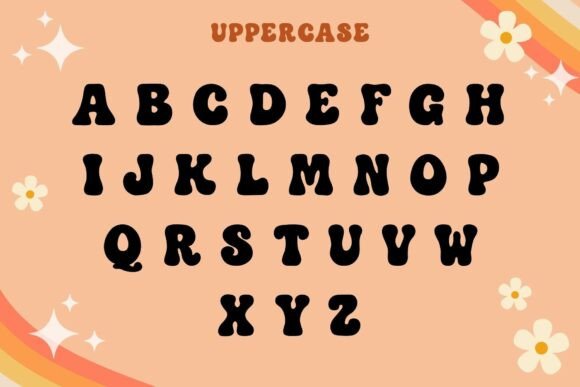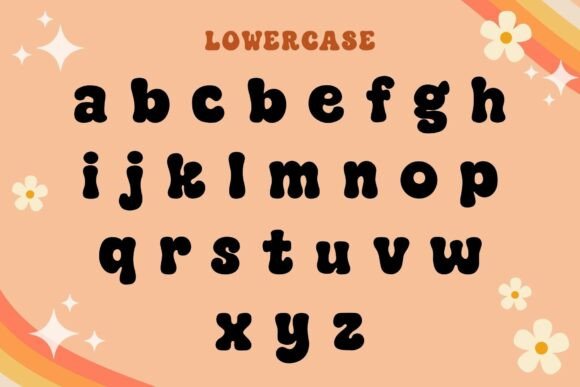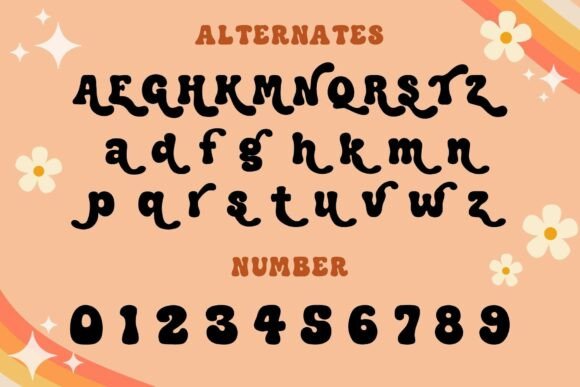
Introduction to Groovy Chunk Font
Have you ever stumbled upon a font that instantly transports you to a bygone era of funk and flair? For designers and creatives, there’s nothing quite like the thrill of discovering a new design resource that sparks inspiration and elevates their work. And that’s exactly what the Groovy Chunk Font does – it brings a playful, retro vibe to your creative project, making it perfect for standout headlines, logos, and more.
Whether you’re working on a high-quality design for a client or crafting a fun project for yourself, the Groovy Chunk Font is a valuable addition to your toolkit. With its bold, bubbly letterforms and fun alternate characters, this font is sure to add a vibrant punch to your designs. And the best part? It’s a free download, making it accessible to designers of all levels.
Key Features of Groovy Chunk Font
- Unique, high-quality design ideal for creative projects requiring a modern and edgy look.
- Perfect for use in digital design, such as logos, graphics, and typography, due to its modern and chunky aesthetic.
- Designed to be versatile and adaptable, making it suitable for a wide range of creative projects and design applications.
Honest Review: Groovy Chunk Font
As a designer, I’m always on the lookout for unique and high-quality design resources to add some creativity to my projects. Recently, I came across the Groovy Chunk Font, and I was excited to give it a try.
- ✨ One of the things that works well with this font is its transparent background, which makes it easy to use as a overlay or text element in creative projects.
- ✨ The font itself is quite versatile and can be used for a variety of design purposes, from headings to body text.
- ⚠️ The font is only available in a limited number of weights, which may not be ideal for designers who need a wide range of font options.
- ⚠️ The font may not be suitable for large-scale text, as it can become pixelated and lose its quality.
Overall, I’d say the Groovy Chunk Font is a solid addition to any designer’s toolkit, but it’s not without its limitations. With a little creativity and experimentation, it can be a great resource for adding some visual interest to your design projects.
The Groovy Chunk Font is ideal for use in creative projects, such as logo design, branding, and infographics. Its high-quality design and transparent background make it a versatile design resource for various applications.